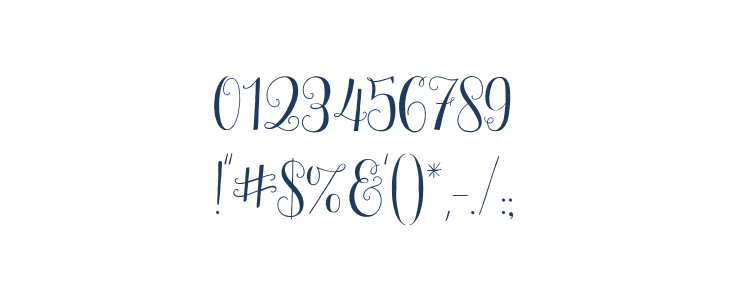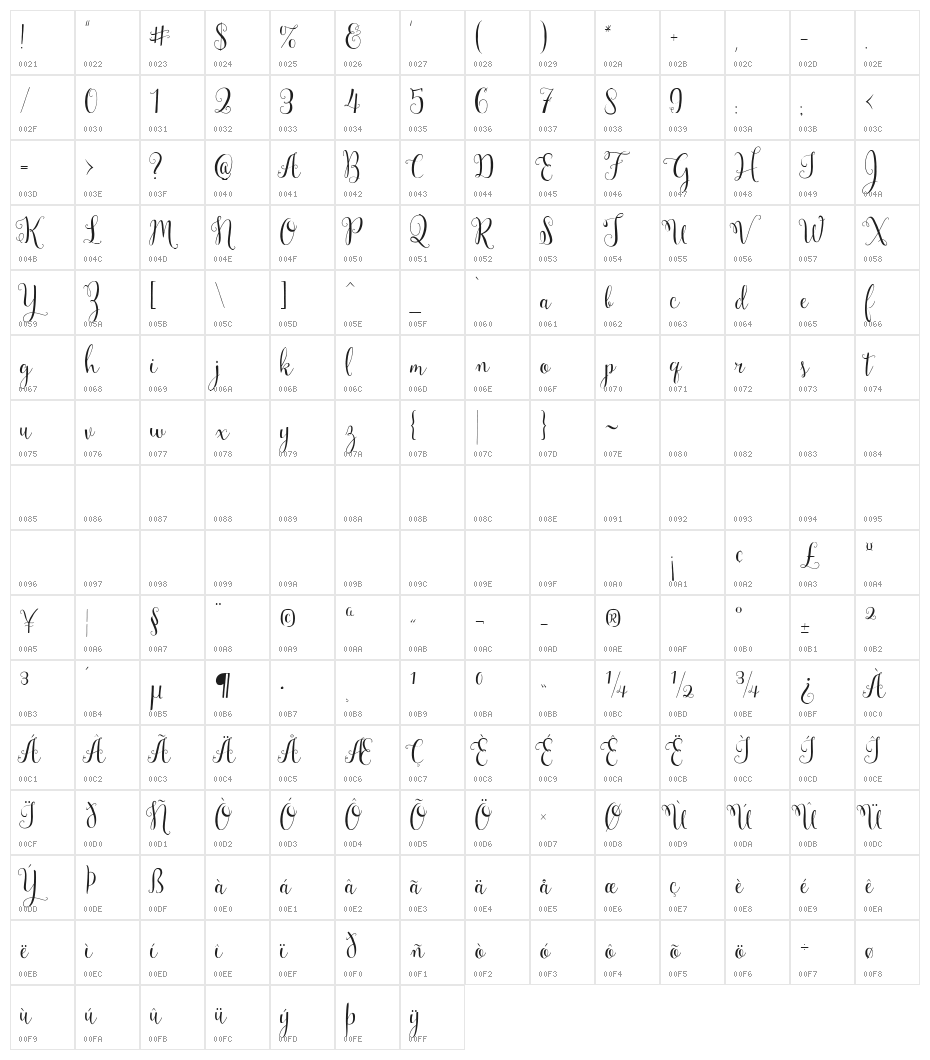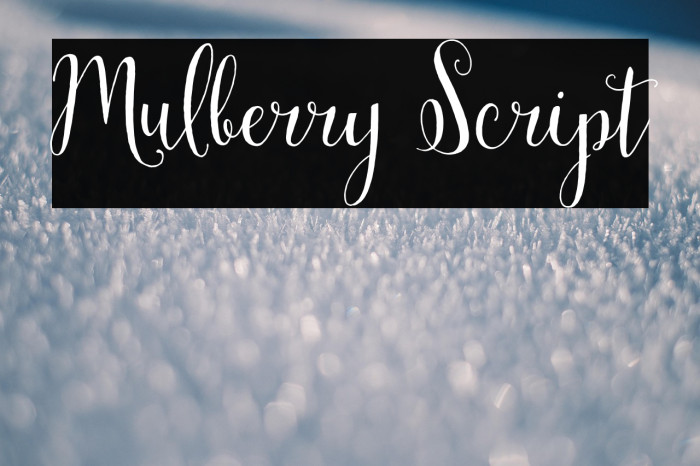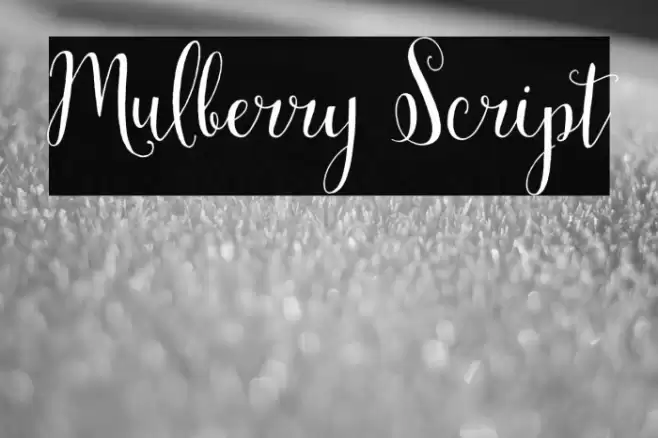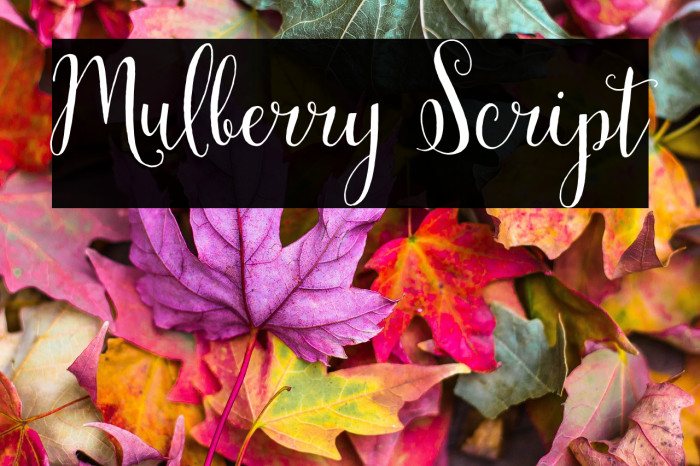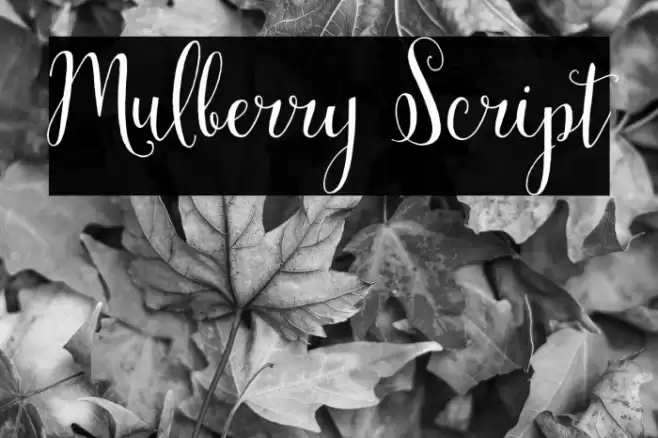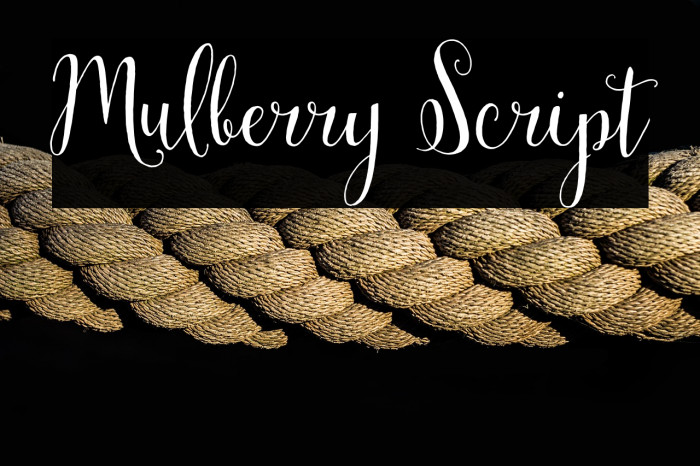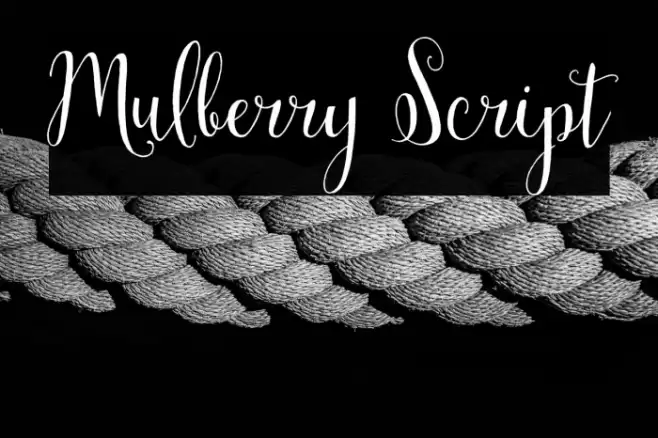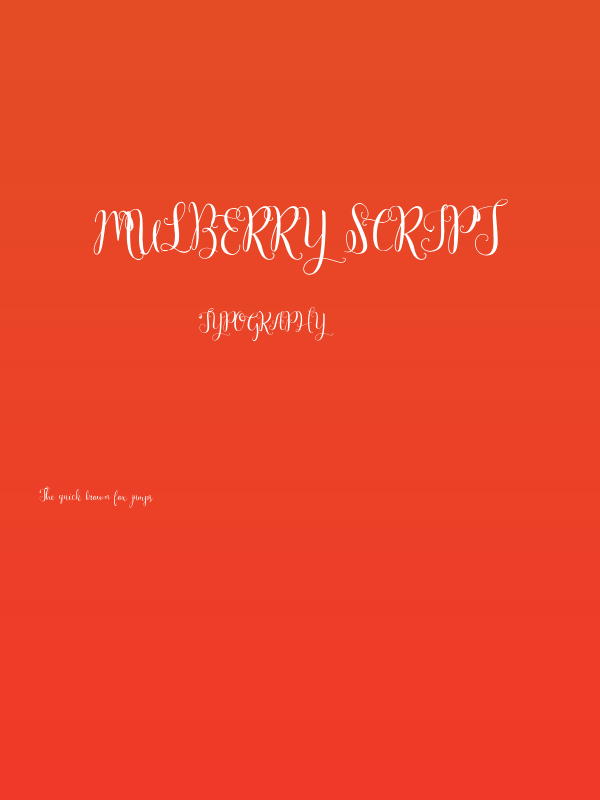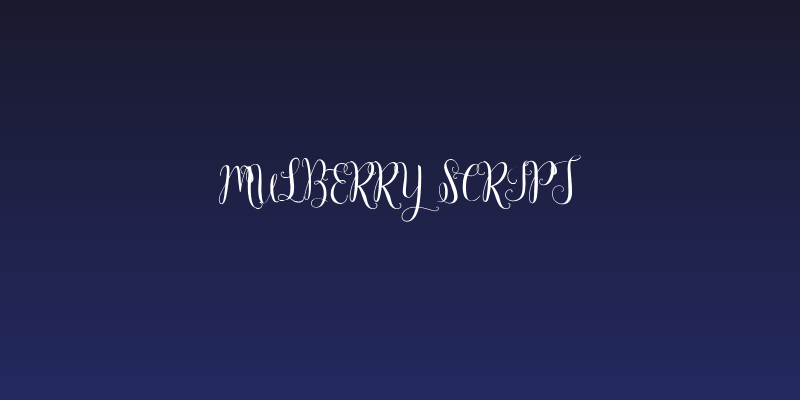
Mulberry Script Font
Mulberry Script Description
This elegant script font features intricate, flowing letterforms with a high degree of ornamentation. The uppercase letters are particularly elaborate, with extended swashes and loops that give a sense of movement and grace. The lowercase letters maintain a consistent style, offering a harmonious blend of curves and flourishes. The numerals and special characters are equally decorative, ensuring a cohesive look across all text. This font exudes a sense of sophistication and charm, making it ideal for projects that require a touch of elegance.
| Proposed Projects | Ideal for wedding invitations, elegant branding, luxury packaging, and decorative headlines. |